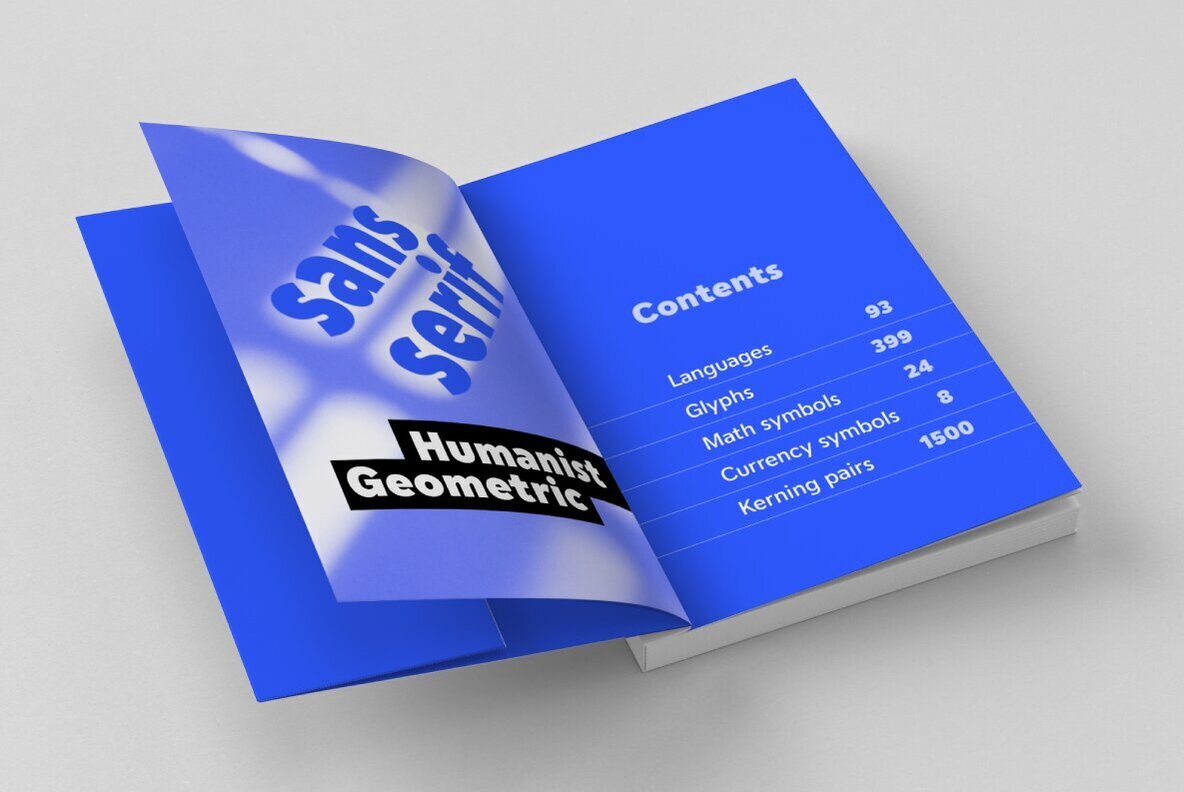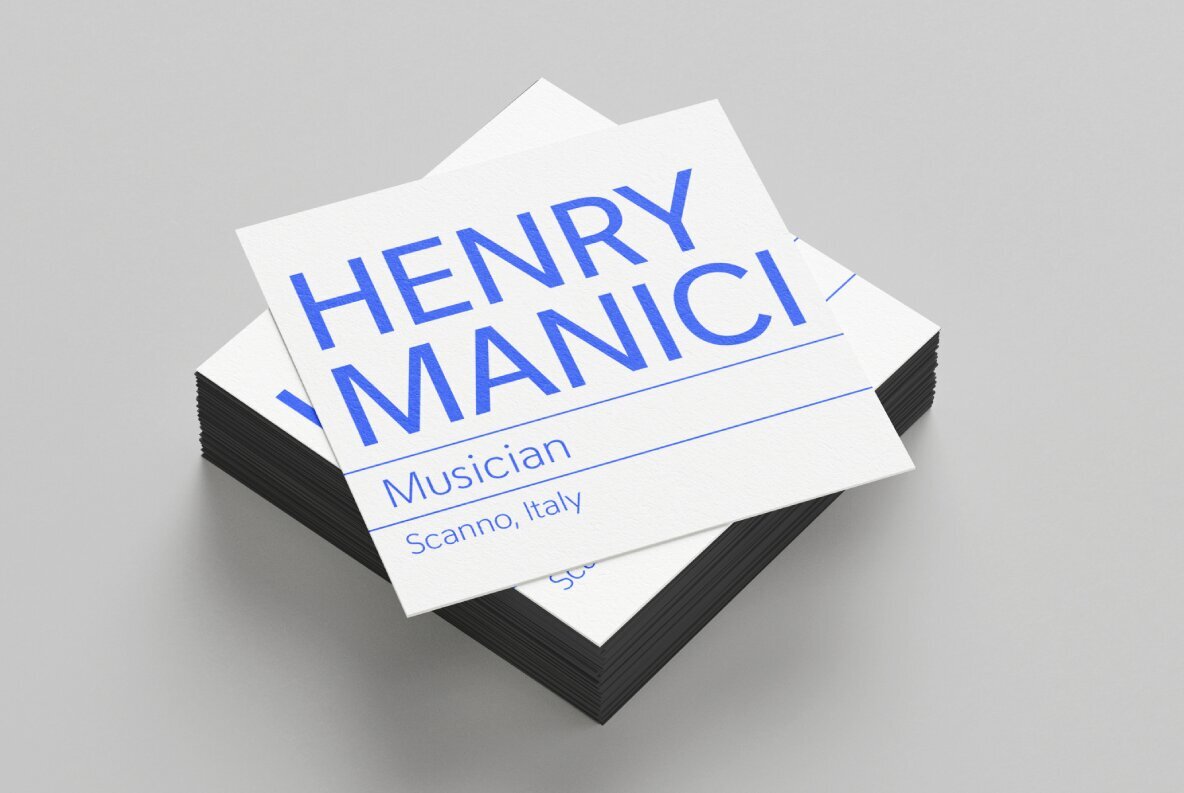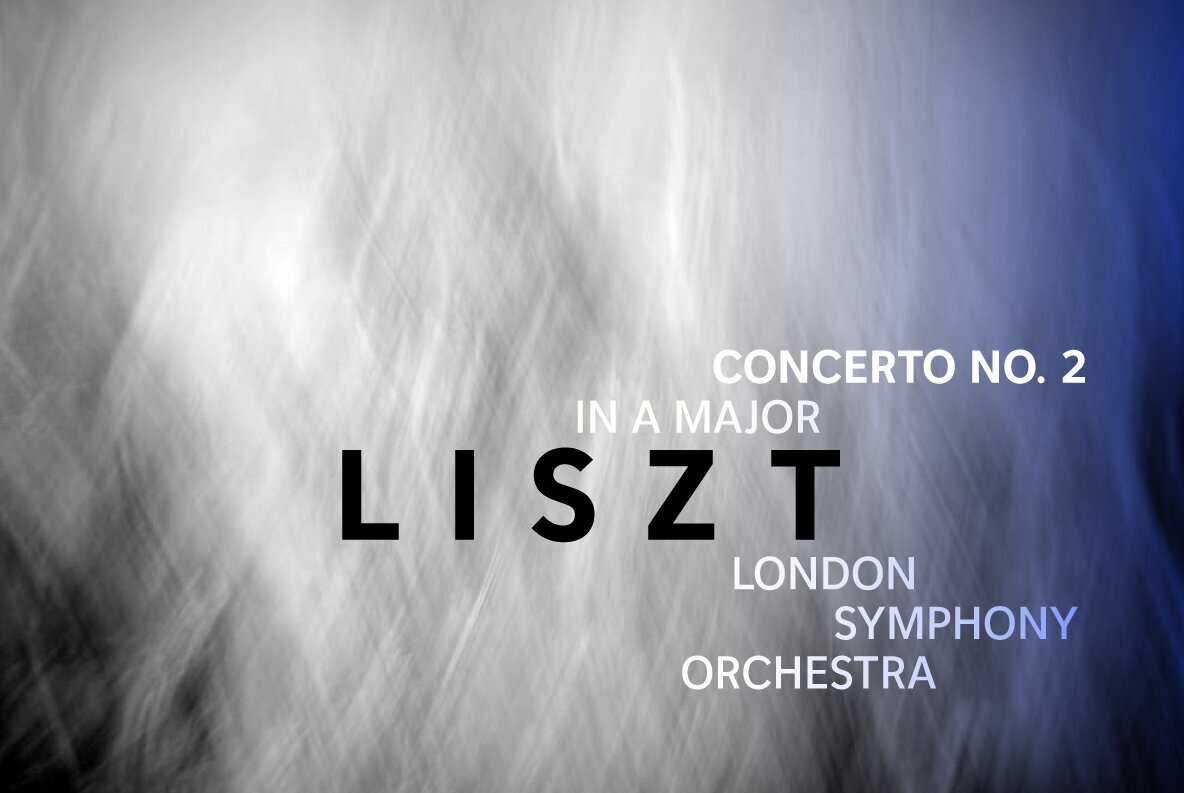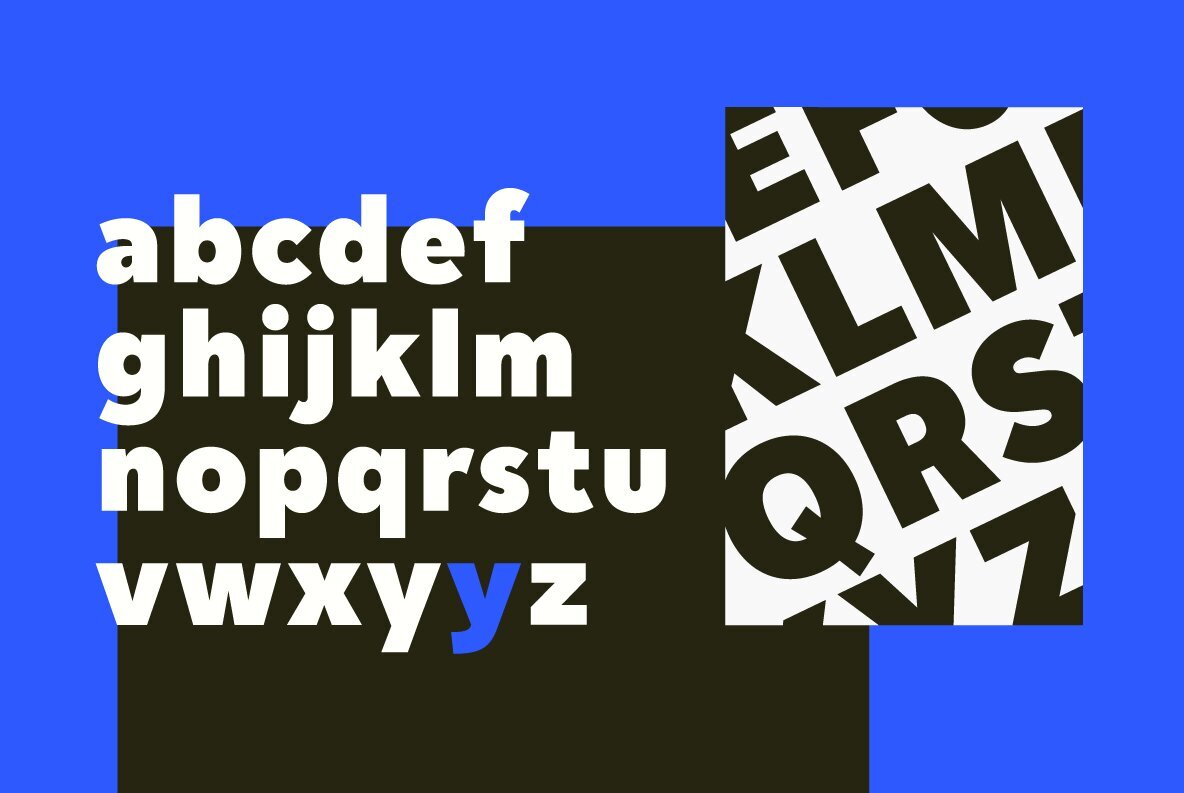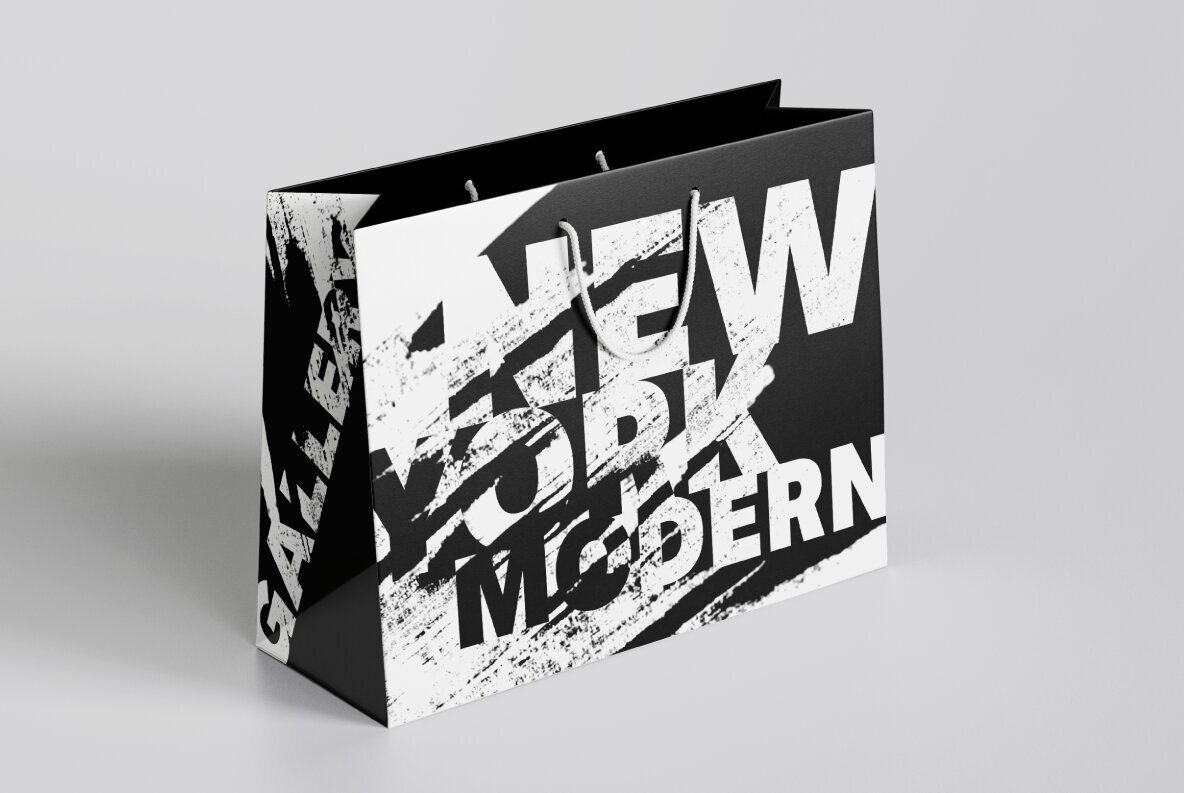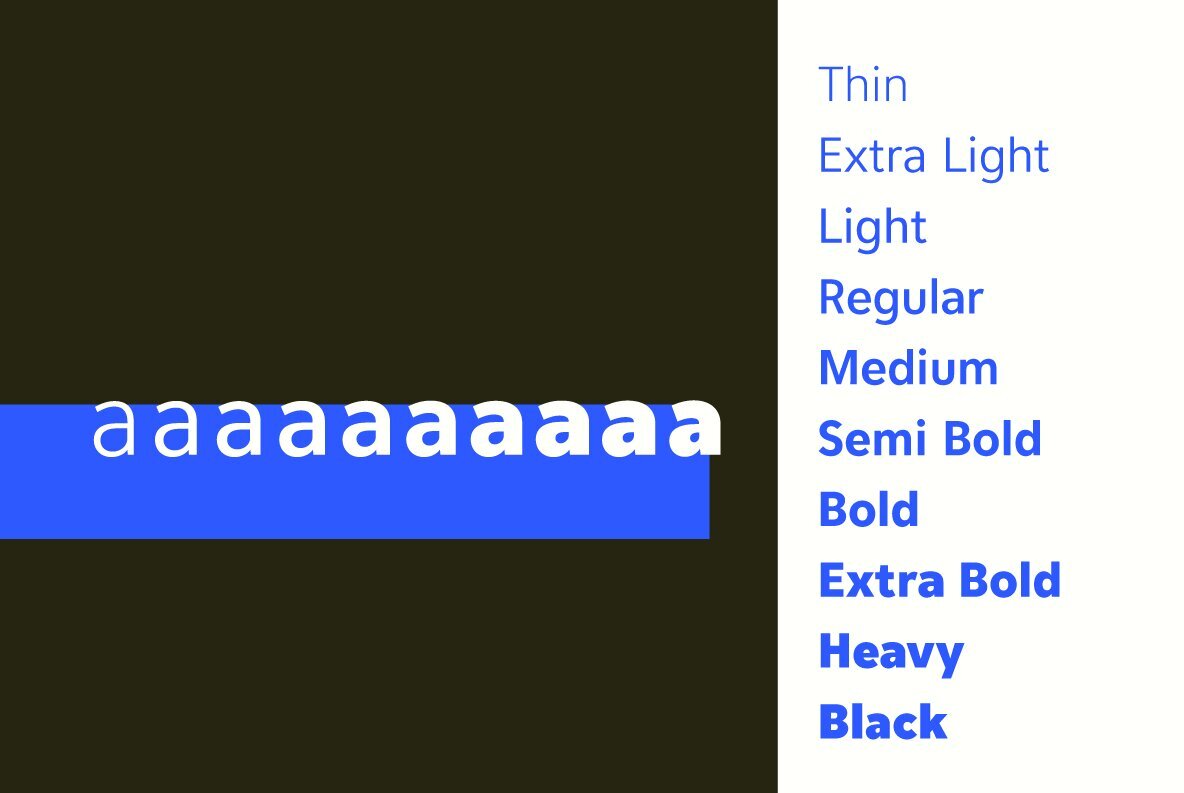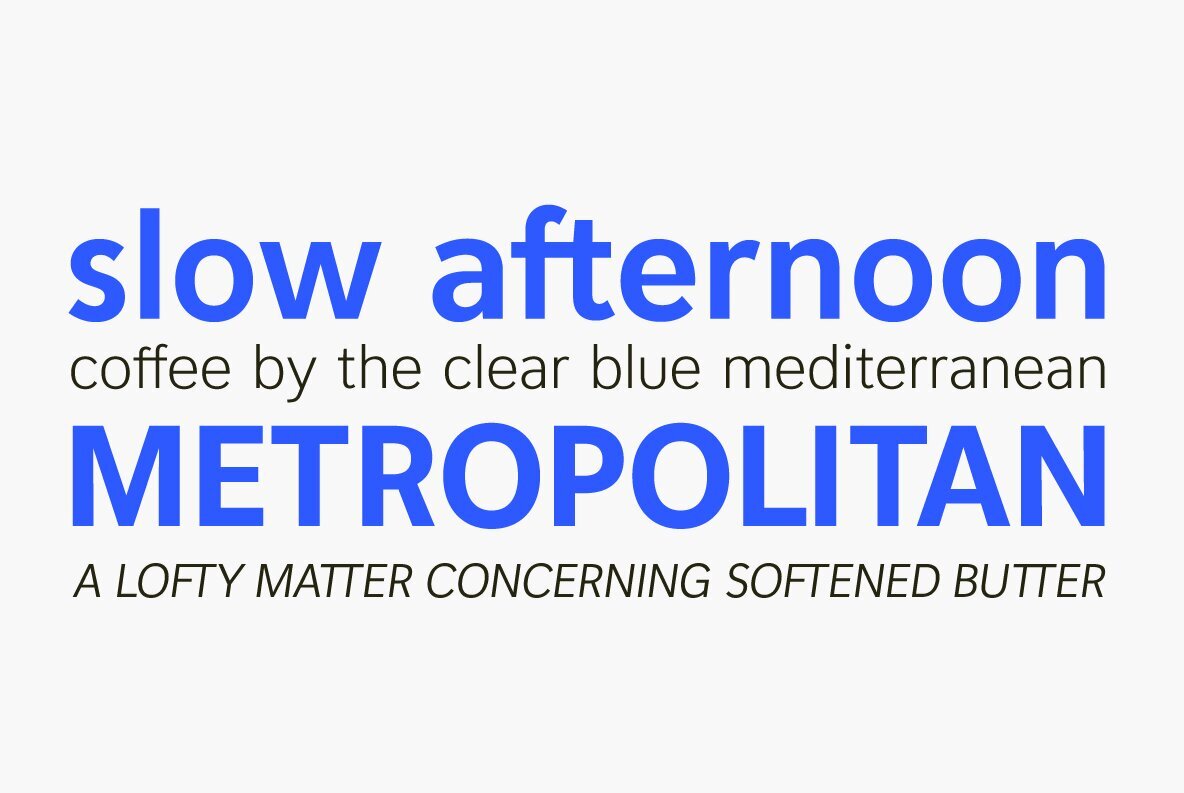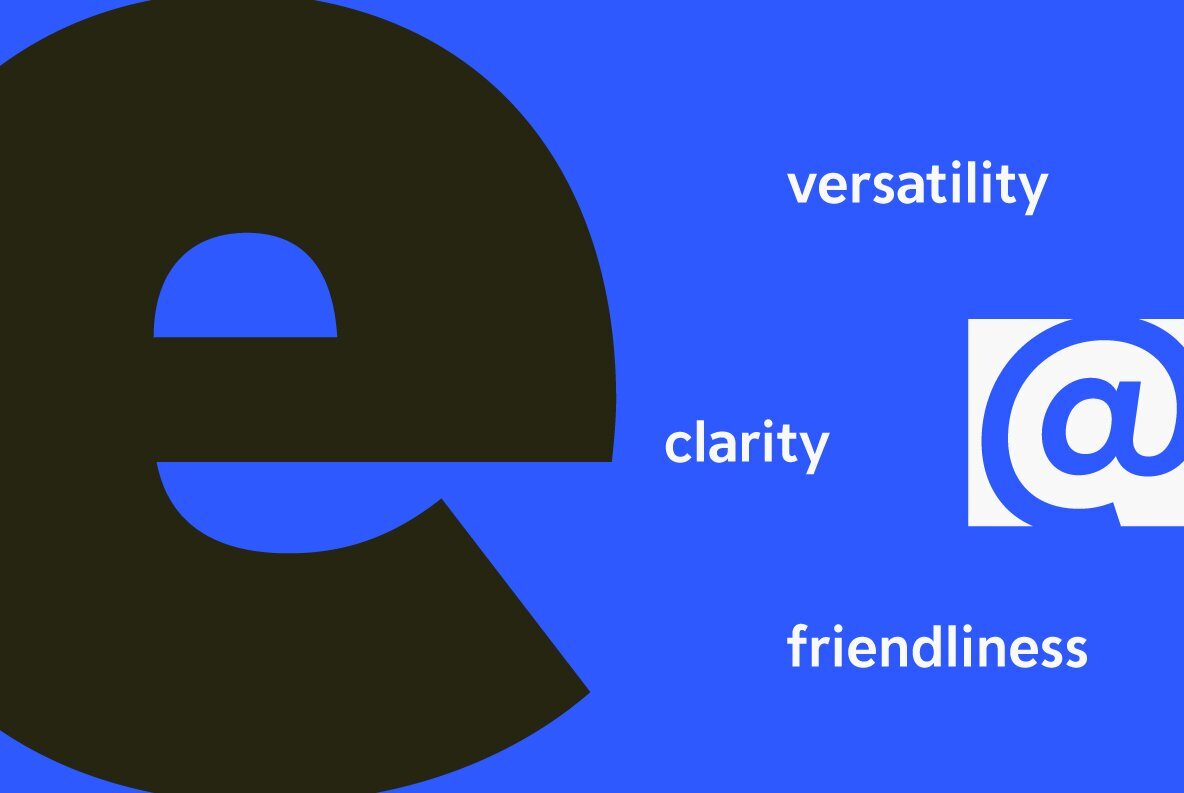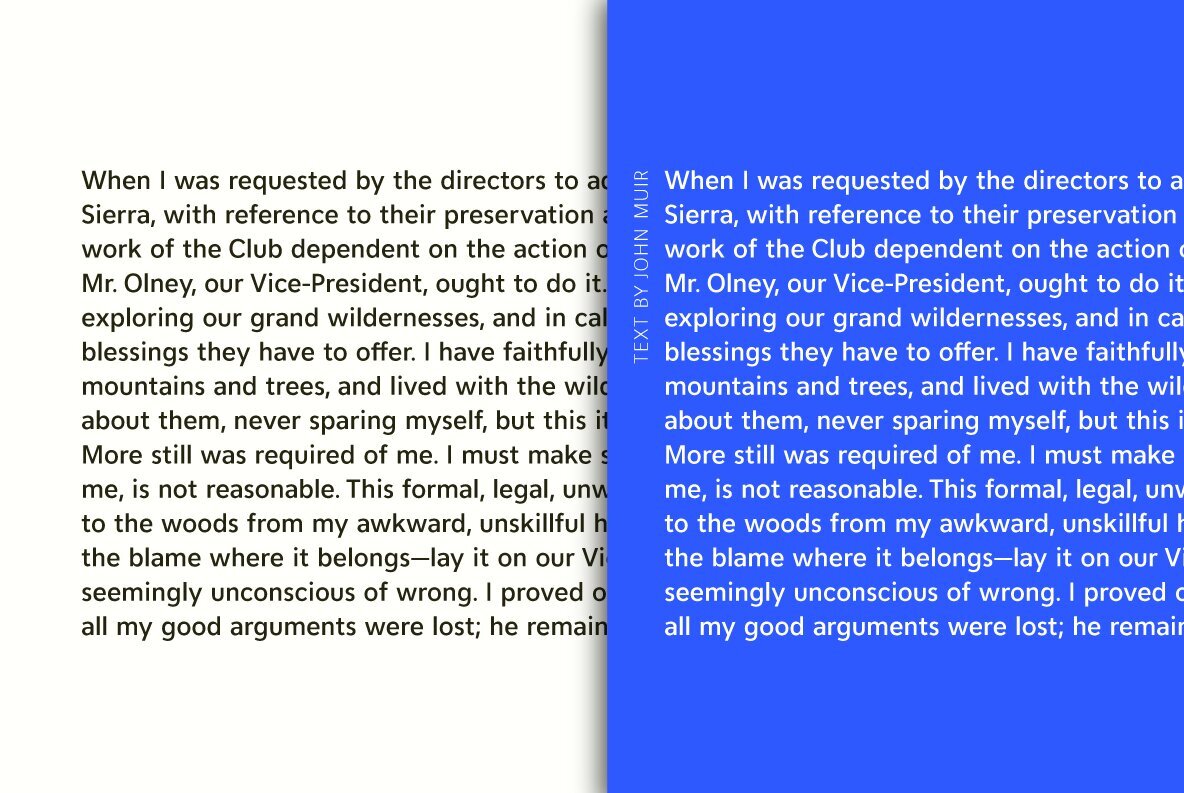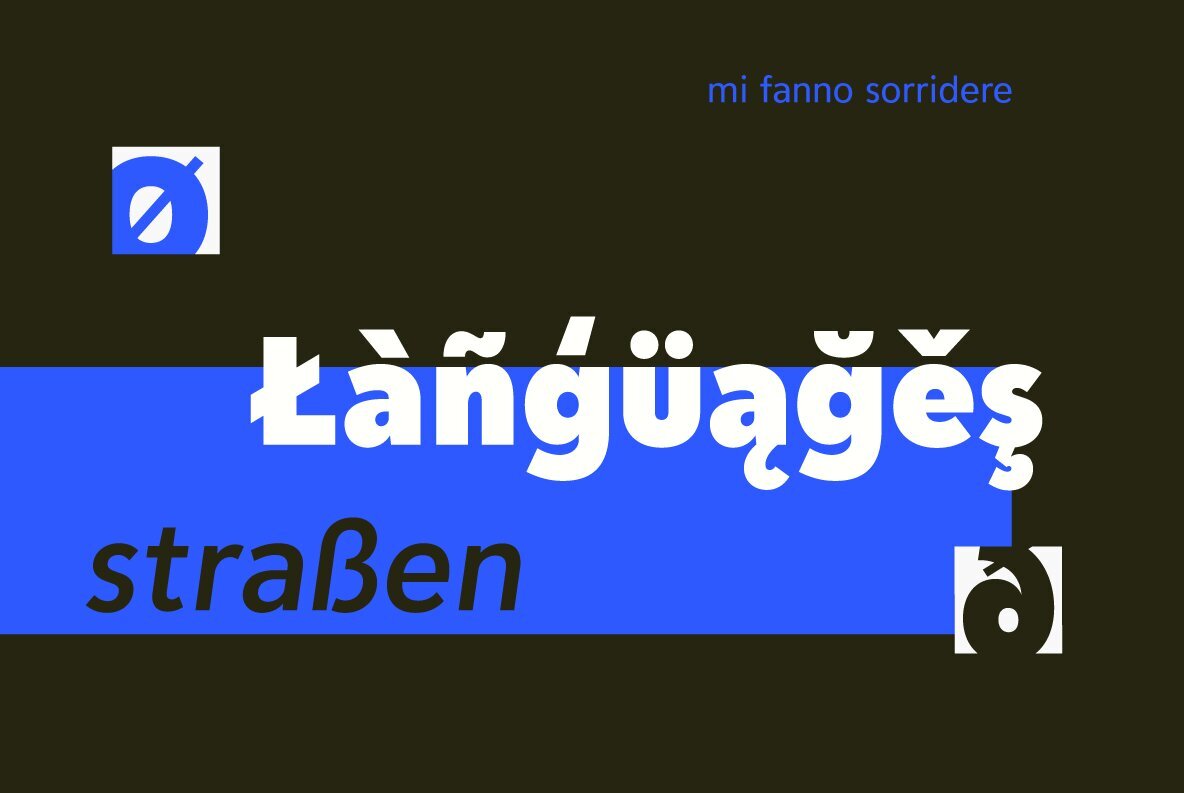
Scanno Font
Scanno is a clean and friendly sans serif typeface with gentle confidence. The humanist and geometric typographic qualities give it a fresh and warm contemporary feel. Its modern tone is a good fit for many graphic design needs and industries. Sectors such as art, design, education, fashion, finance, health, insurance, and music will find Scanno’s look to be an ideal fit. Use it in branding, publications, websites, and apps for timeless clarity and approachability. It comes in ten weights from thin to black, offering versatility for body text, captions, headings, or display text. Designed with reading on screens in mind, the open letterforms and angled terminal strokes, along with a tall x-height, make Scanno a legible font at any size or media. Scanno is an essential and versatile core font for your collection. OpenType features include standard ligatures (ff, fi, ffl, ffi, ffl), discretionary ligatures (fj, ft, ffj, Th, FT, TT), and an alternate letter y. It supports western and central European languages, as well as other Latin-based written languages. It offers a good selection of math symbols. It was originally released in 2018 and remastered in 2024 with a new black weight and expanded language support. Scanno was inspired by classics Akzidenz-Grotesk and Avenir. Glyph count 399 Supported languages Afrikaans, Albanian, Asu, Basque, Bemba, Bena, Bosnian, Catalan, Cebuano, Chiga, Colognian, Cornish, Corsican, Croatian, Czech, Danish, Embu, English, Esperanto, Estonian, Faroese, Filipino, Finnish, French, Friulian, Galician, German, Gusii, Hungarian, Icelandic, Ido, Indonesian, Interlingua, Irish, Italian, Javanese, Jju, Kabuverdianu, Kalaallisut, Kalenjin, Kamba, Kikuyu, Kinyarwanda, Kurdish, Latvian, Lithuanian, Lojban, Low German, Lower Sorbian, Luo, Luxembourgish, Luyia, Machame, Makhuwa-Meetto, Makonde, Malagasy, Malay, Maltese, Manx, Māori, Meru, Morisyen, North Ndebele, Northern Sotho, Norwegian Bokmål, Norwegian Nynorsk, Nyanja, Nyankole, Occitan, Oromo, Polish, Portuguese, Rejang, Romanian, Romansh, Rombo, Rundi, Rwa, Samburu, Sango, Sangu, Sardinian, Scottish Gaelic, Sena, Shambala, Shona, Slovak, Slovenian, Soga, Somali, South Ndebele, Southern Sotho, Spanish, Sundanese, Swahili, Swati, Swedish, Swiss German, Taita, Taroko, Teso, Tsonga, Tswana, Turkmen, Upper Sorbian, Vunjo, Walloon, Walser, Wolastoqey, Xhosa, Zulu Scanno is protected by copyright, eulas, international intellectual property laws, and the Digital Millennium Copyright Act (DMCA).